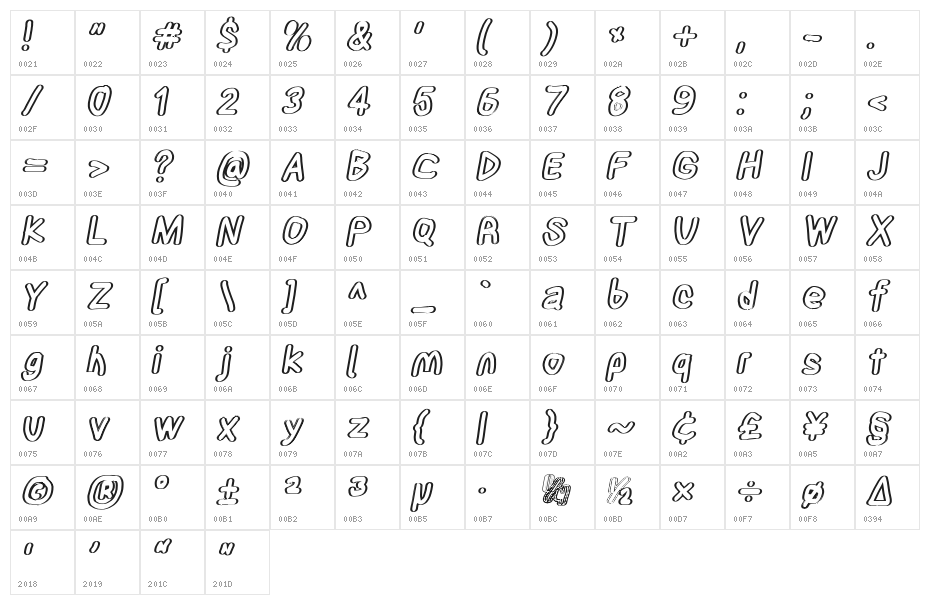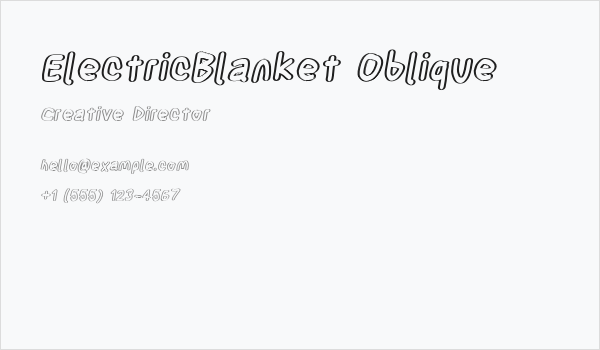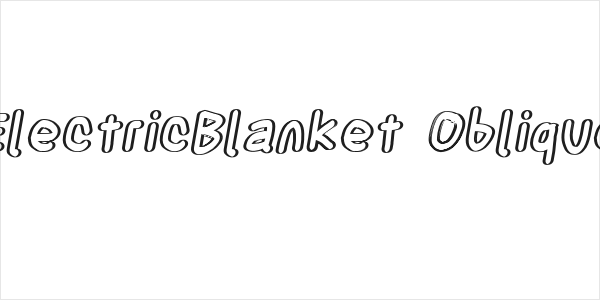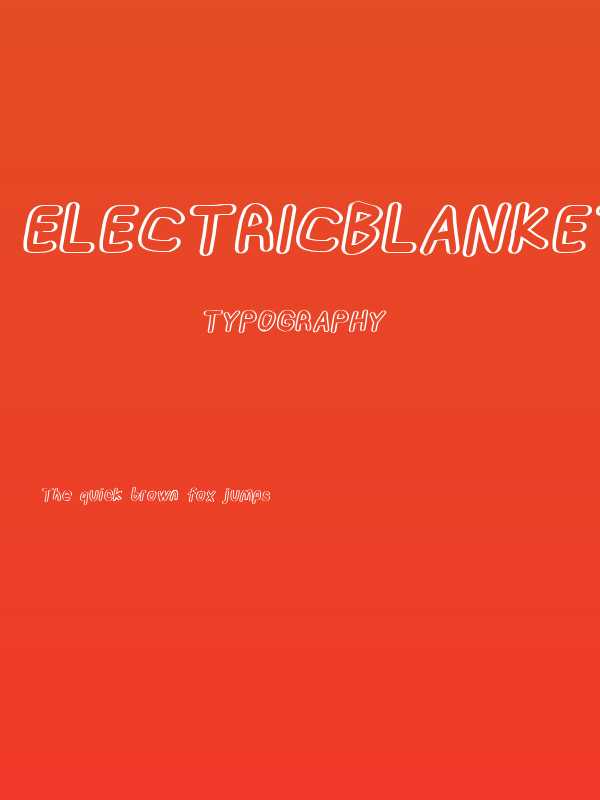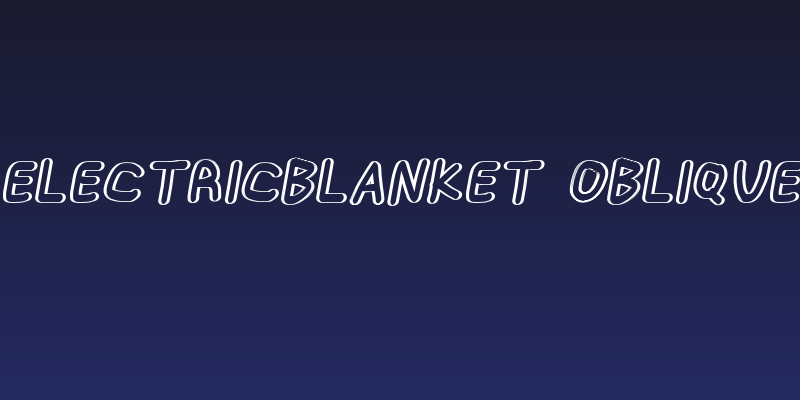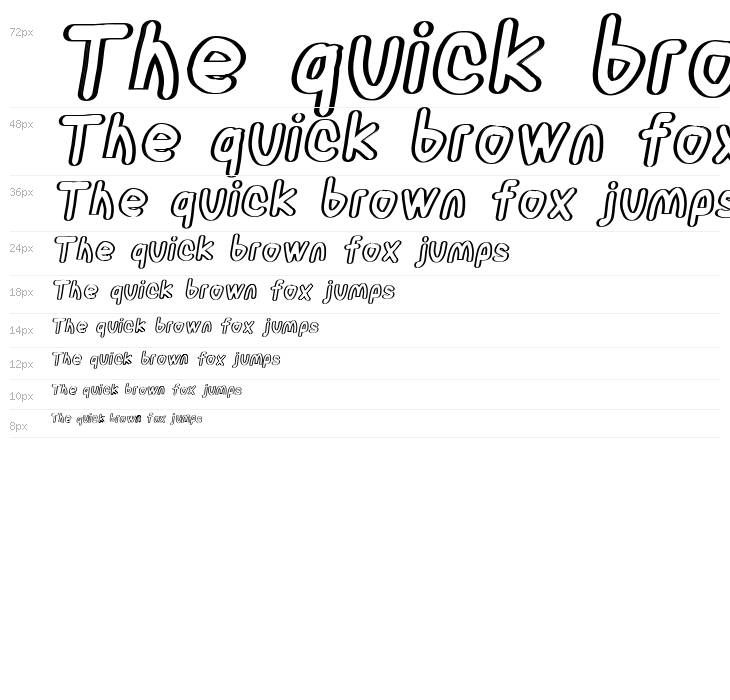
ElectricBlanket Oblique Font
ElectricBlanket Oblique Description
This playful and dynamic font features a bold, oblique style with a hand-drawn appearance. The letters are outlined, giving them a bubble-like effect that adds a sense of fun and creativity. Each character is slightly tilted, enhancing the casual and informal vibe. The strokes are consistent in width, providing a uniform look across all characters. The font includes a full set of uppercase and lowercase letters, numbers, and a variety of special characters, making it versatile for various design needs.
| Overall Style | Playful, Creative |
| Proposed Projects | Ideal for children's book covers, playful branding, casual invitations, and creative posters. |